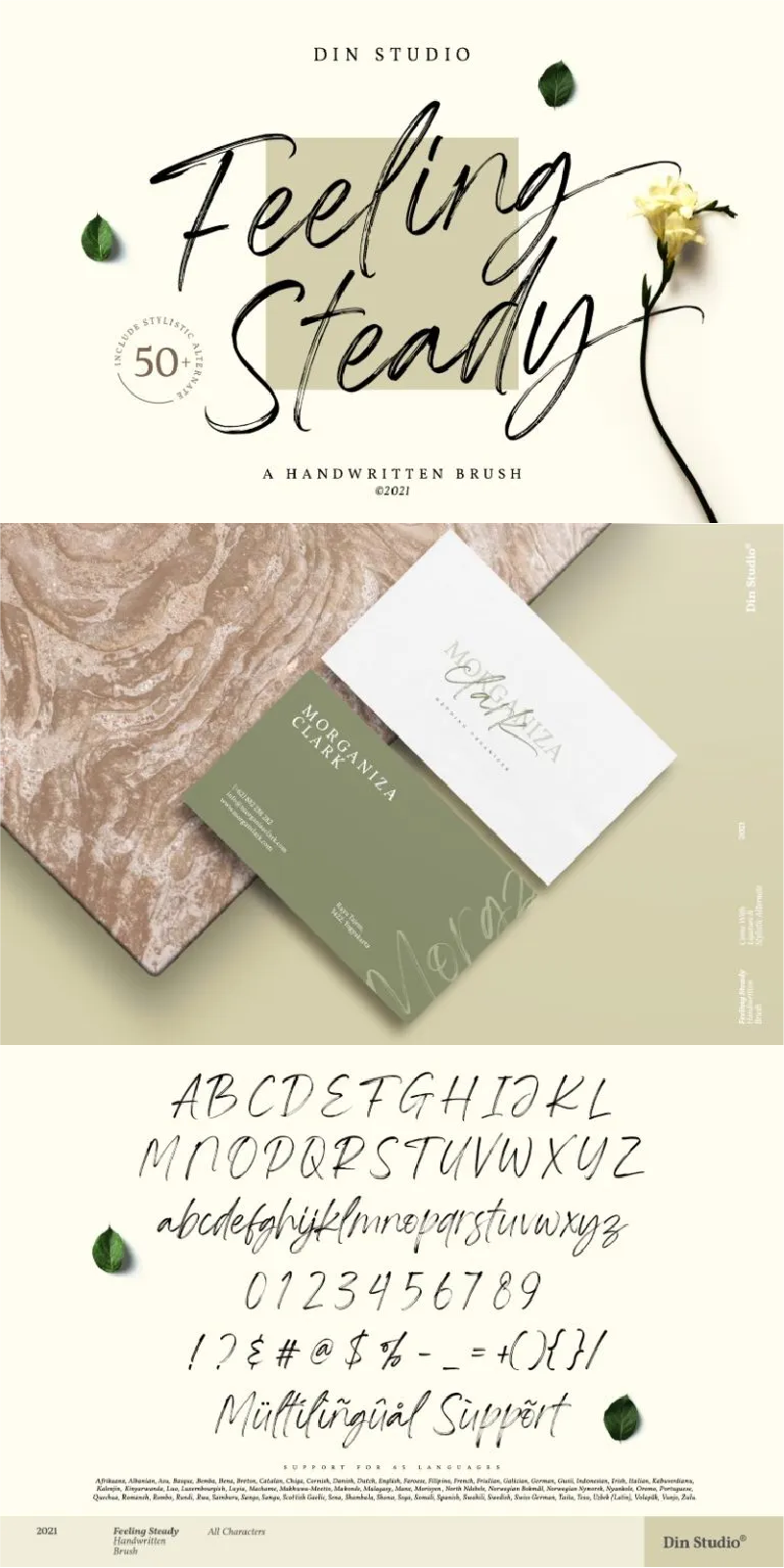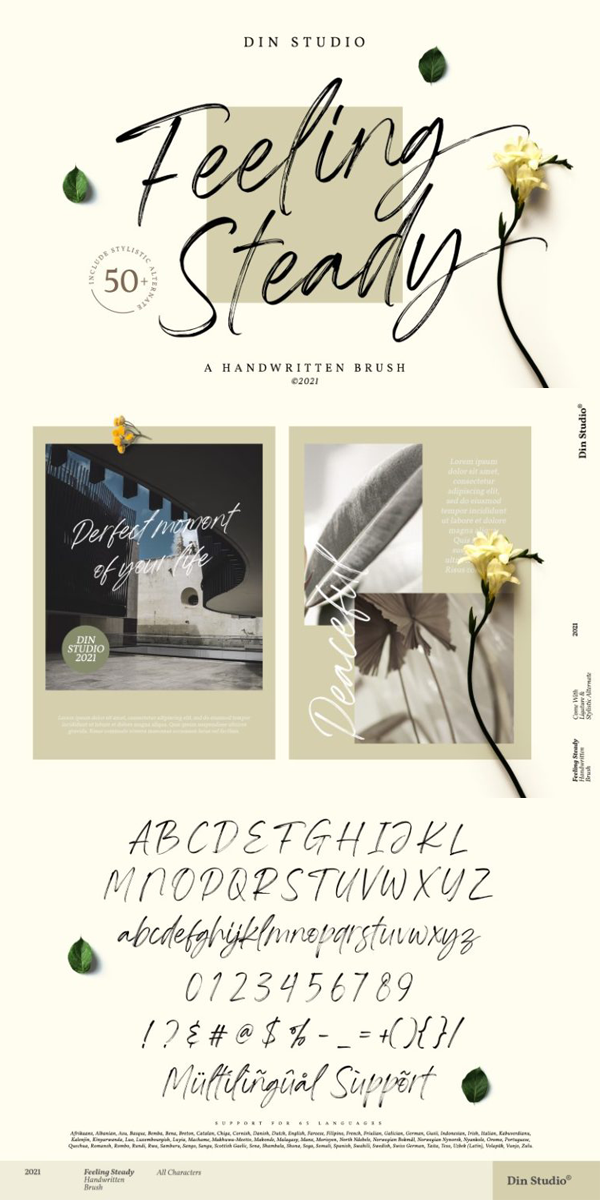
Feeling Steady Font
About Feeling Steady
Feeling Steady – A Handwritten Font
This handmade font combined with brush style looks very interesting for loads of different projects and promotions. It is perfect to be used on your website, for your social media branding, Pinterest banners, printed products, and more! See the previews above to get some inspiration on how you can use them.